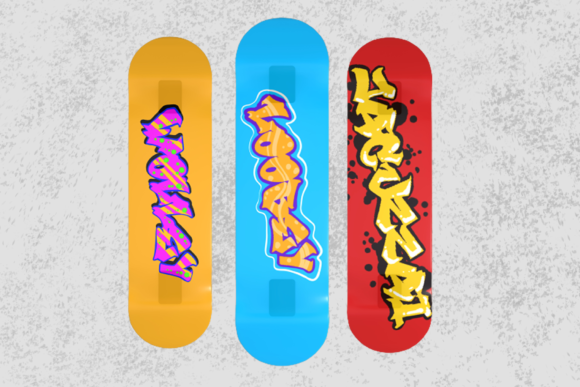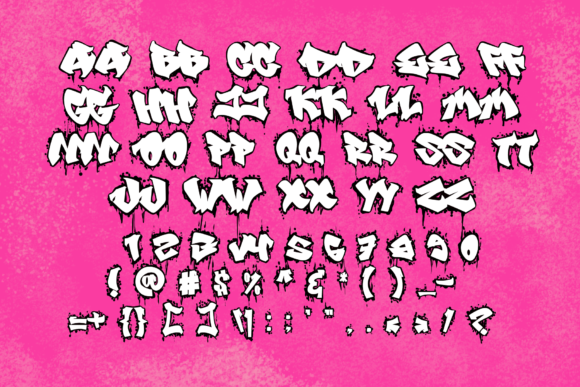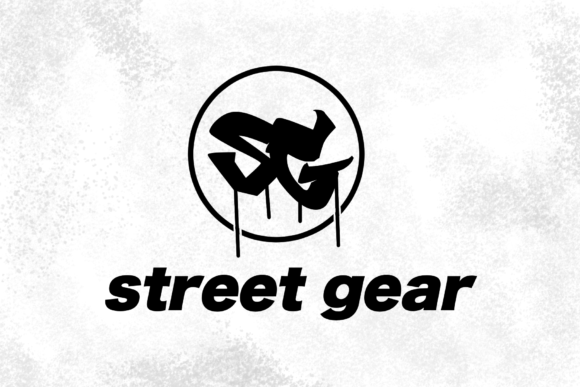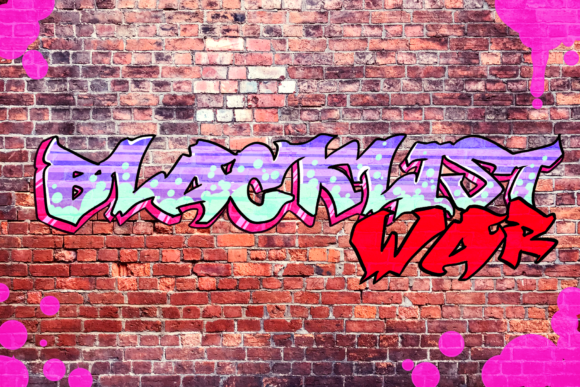
Street Eagle is a unique display font with a graffiti-like appearance. Use this font for any crafting project, apparel design, logotype, advertising, wall decoration, and pretty much anything that requires a personalized look. Take your designs to the next level with this stunning font!
Street Eagle Graffiti Font